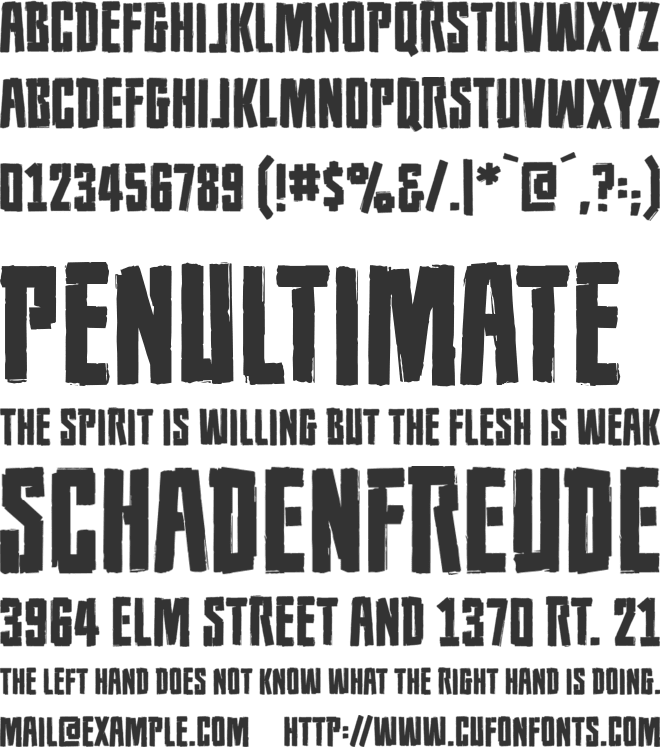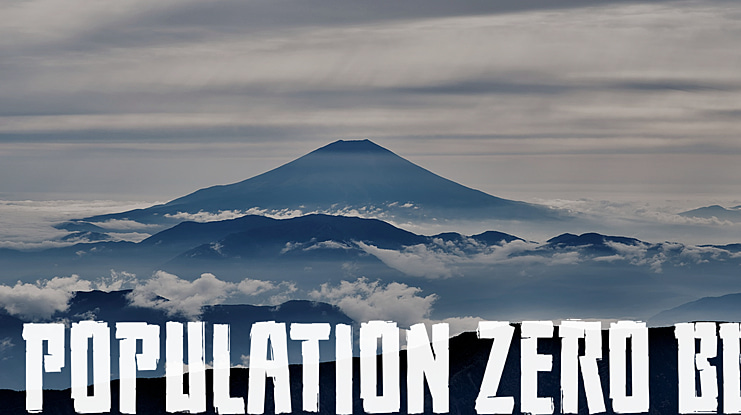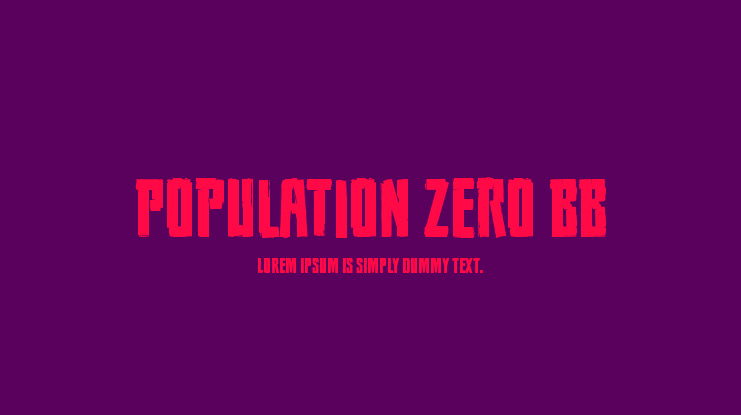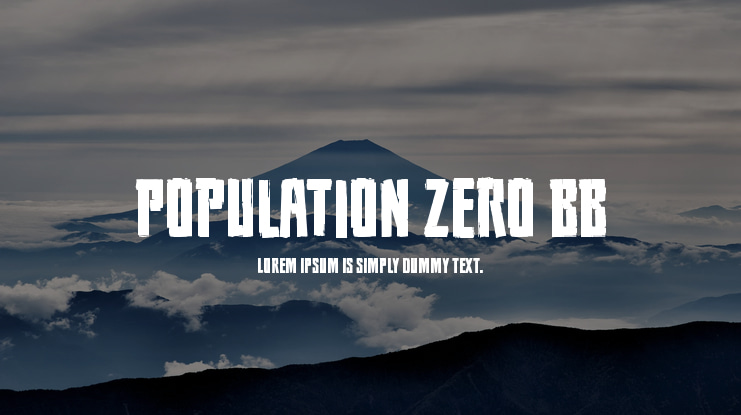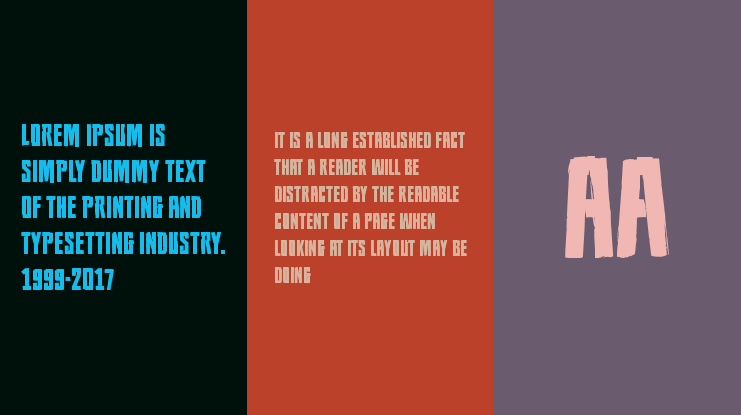
Population Zero BB Font
Believe it or not, this post-apocalyptical font started out with a roll of electrical tape and a challenge to see if I could turn it into a typeface. The upper and lowercase keys are alternate cap letters. It's available exclusively in Opentype because I included autoligatures to swap out adjacent, identical characters, A-Z, a-z, and 0-9.